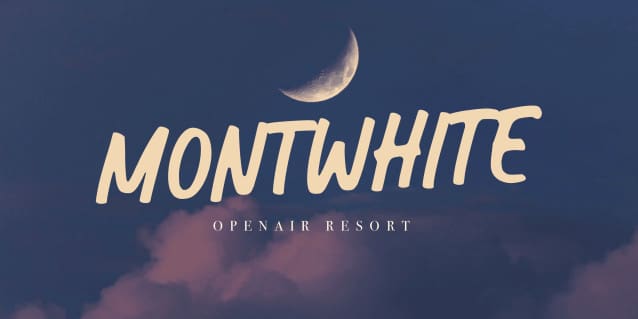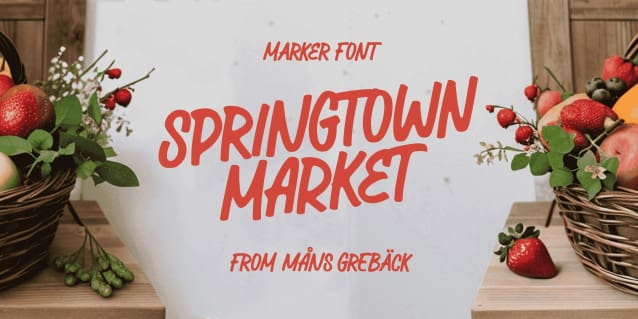
Springtown Market Font
Springtown Market Font, perfectly fit for branding, logo, wedding things, greeting cards, fashion, lookbook, marketing promotion, anytime you want to look fancy elegant but still casual.
Springtown Market is a lively font inspired by a flowering and lively market.